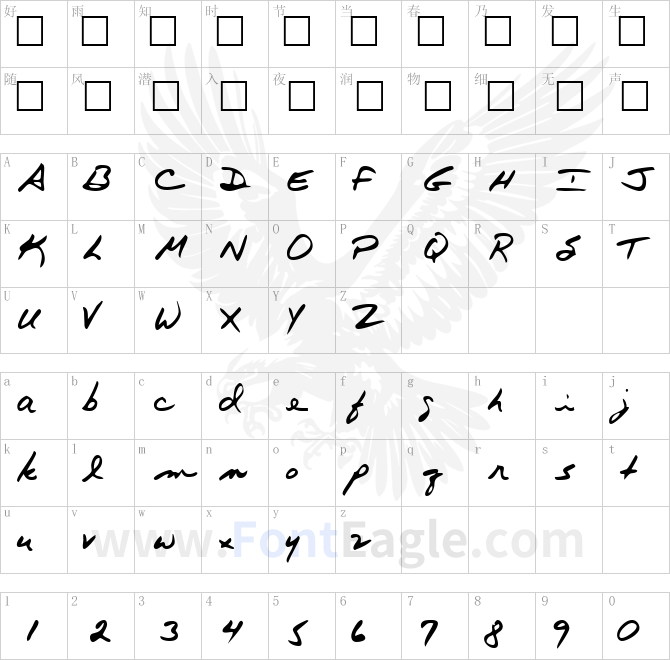
- Font name:TerrysHand
- Font Subfamily ID:Weatherly Systems, Inc. TerrysHand Regular
- Font Full Name:TerrysHand Regular
- Postscript:TerrysHand-Plain